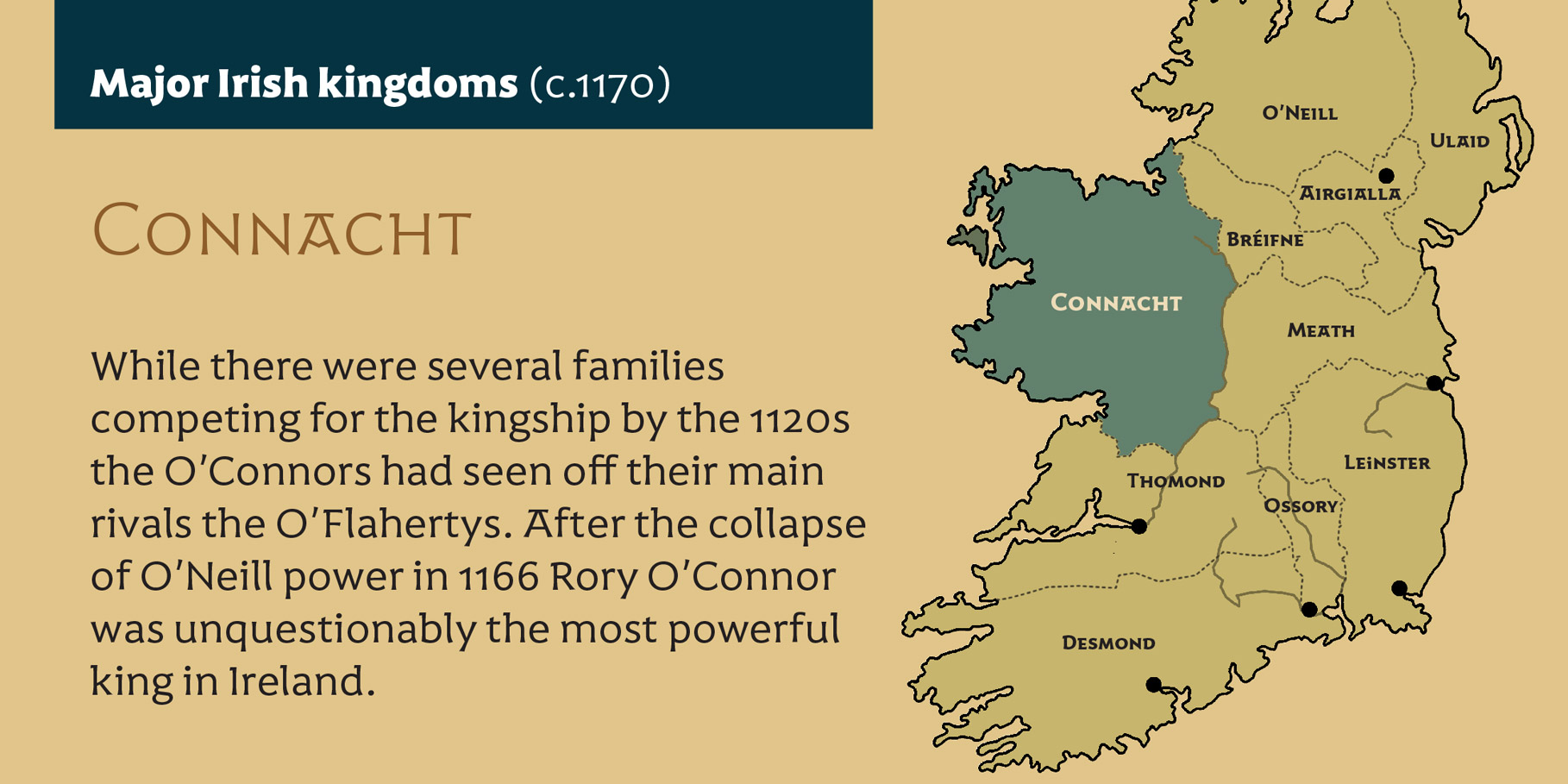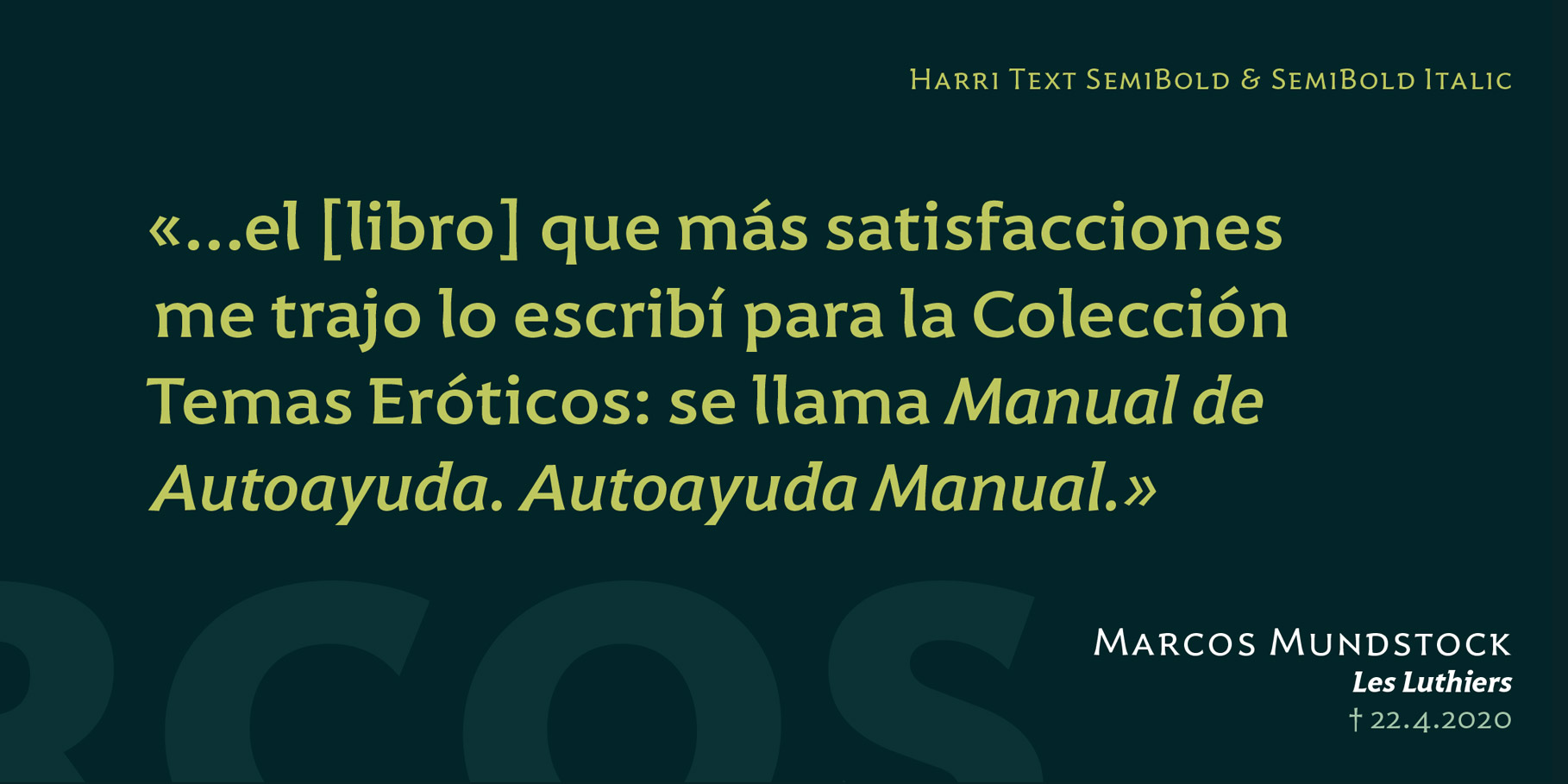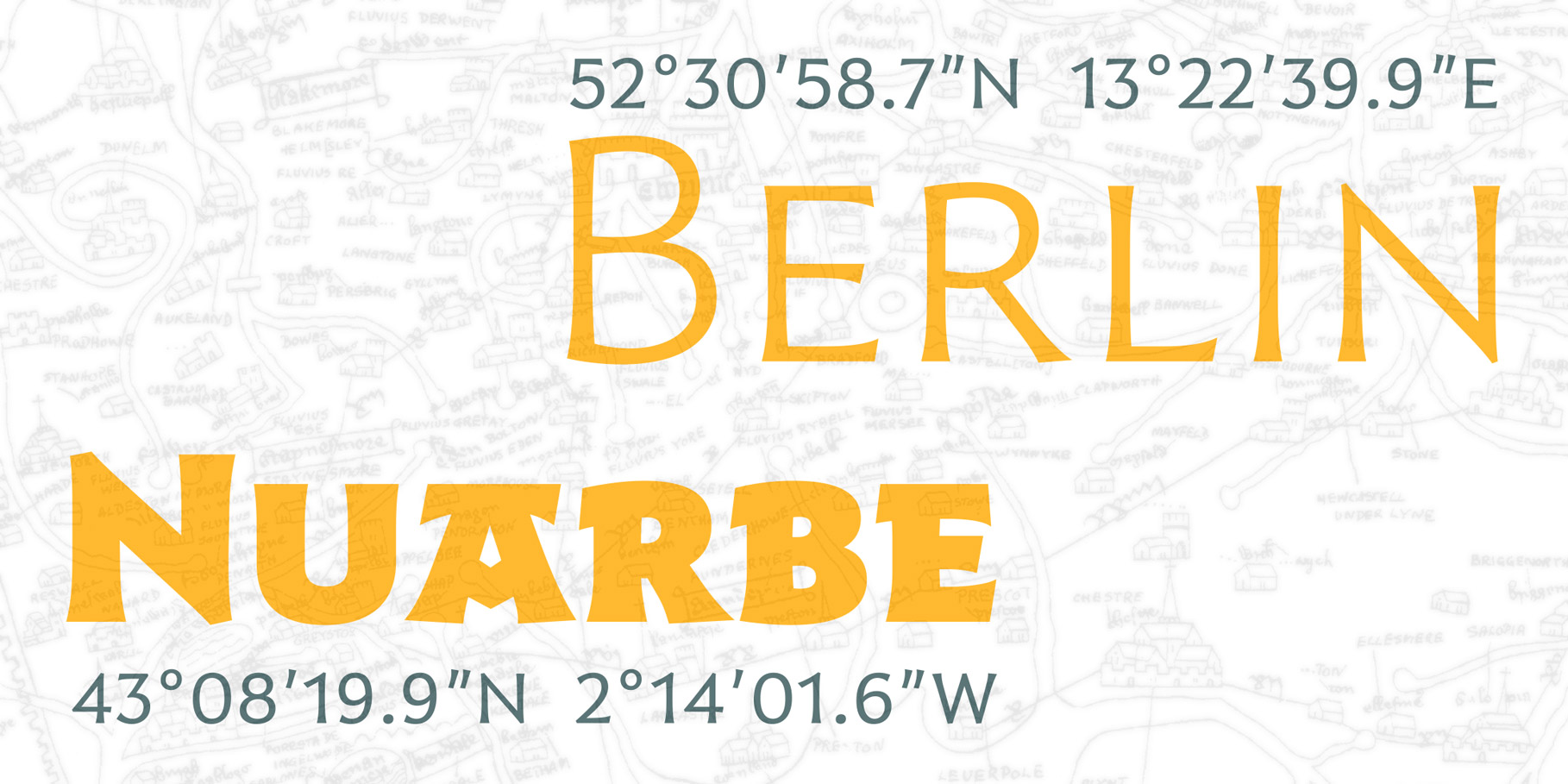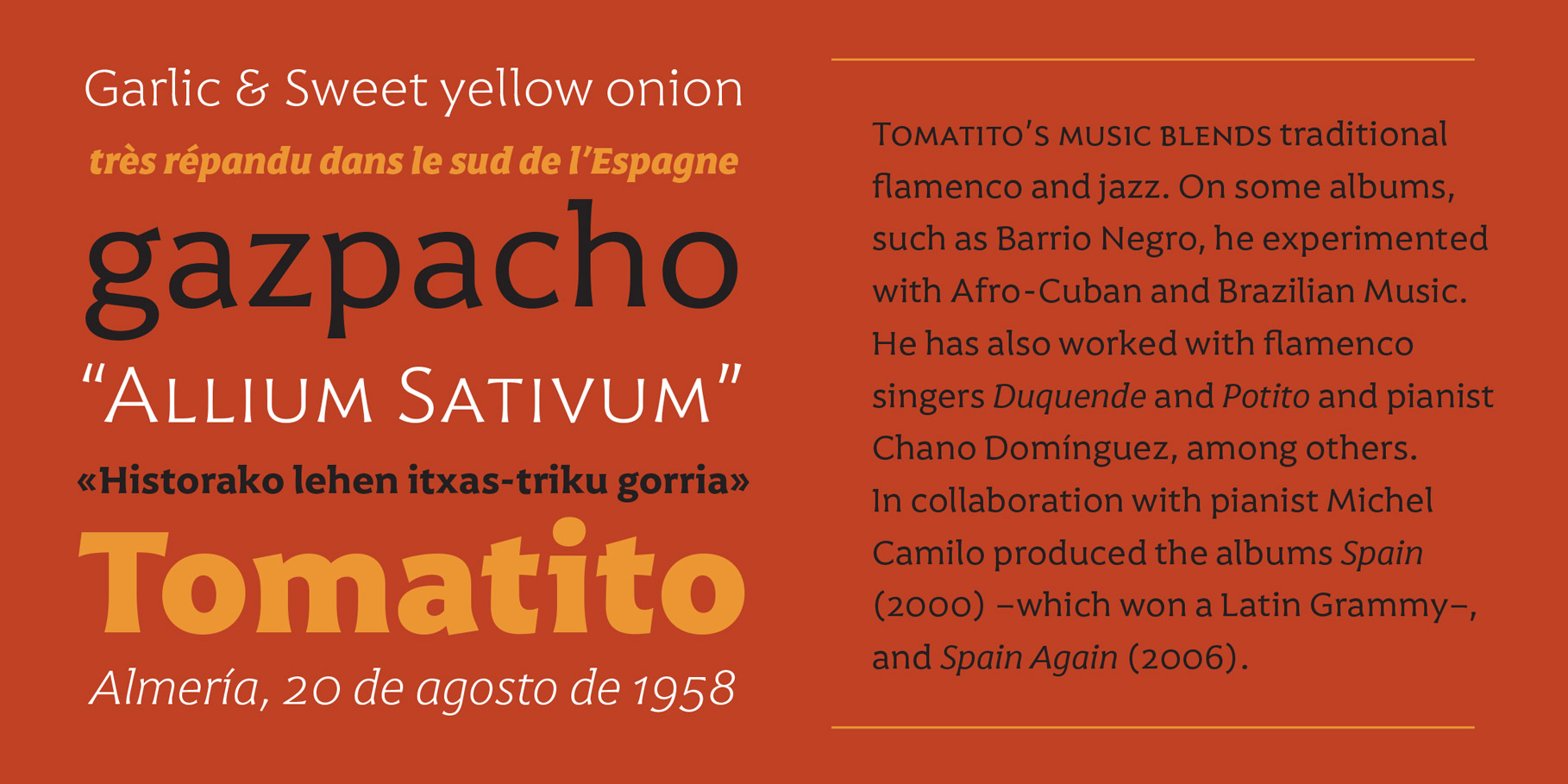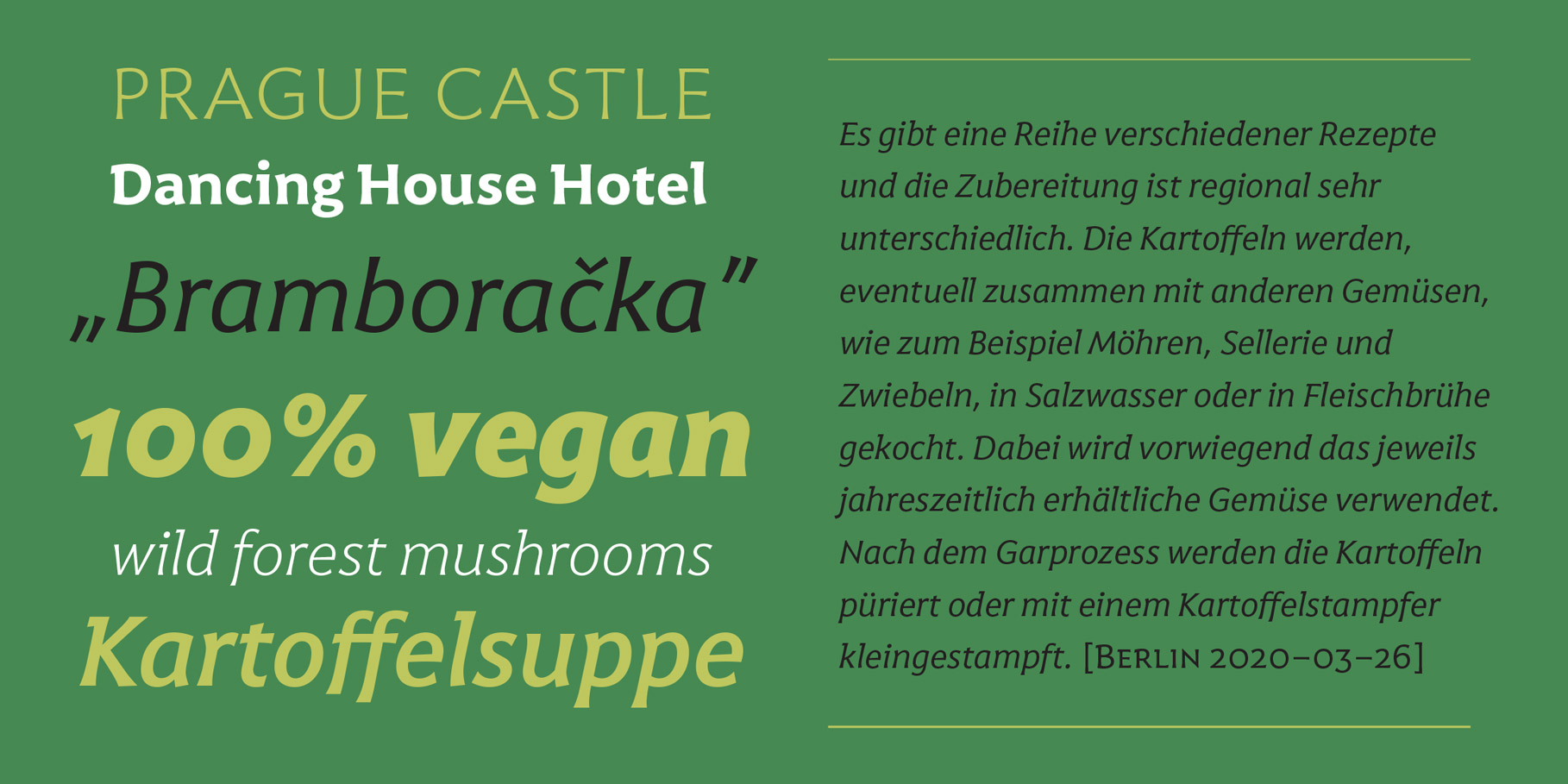
Harri Text is more than an extension of Harri. It shares its origin, a certain flavour and a great deal of its idiosyncrasies, but while Harri is an uppercase-only typeface intended for display uses, Harri Text is conceived as a text type family, including a new extra-light weight, italics, small caps and other additions that make it suitable for editorial purposes. As its predecessor Harri Text addresses several concerns regarding the dualism neutrality vs. idiosyncrasy, or in other words, how local features meet global design in the context of a modern society (as is the case in the Basque Country in recent times).
The origin of Harri and Harri Text —vernacular Basque lettering for the most part— is full of idiosyncrasies and peculiarities that, while giving them its special character, may hinder readability in some cases. The default set in Harri Text tones its essence down a little bit. It is still present, although less obtrusive. Stylistic sets 1, 2 and 3 are a chance to recover gradually this essence modifying some characters —specially the characteristic design of letter A– for those who seek a more local flavour. Stylistic set 4, on the other hand, does the opposite job, this is, removes asymmetrical serifs and other small details in order to create a more neutral atmosphere. Any traces to its origin are this way diluted resulting in a crisp and clean incise variant. Stylistic set 6 is available in the italic styles. It provides a more fluid and cursive flavour to some letters in case a calligraphic mood is desired.